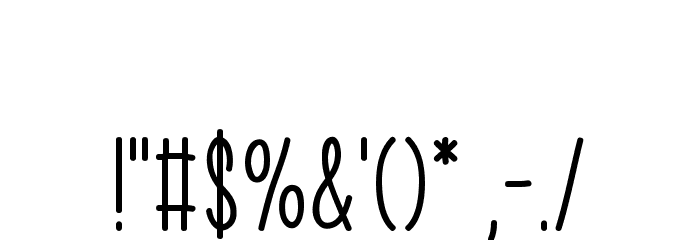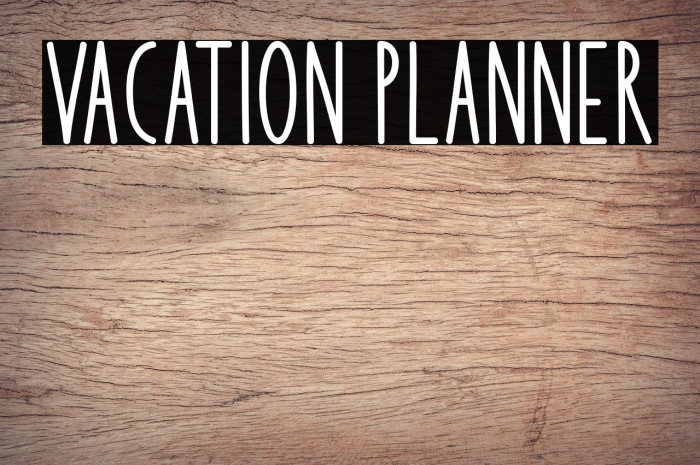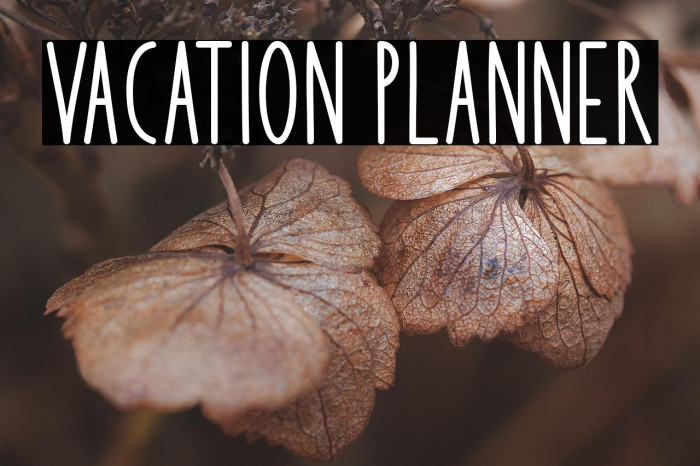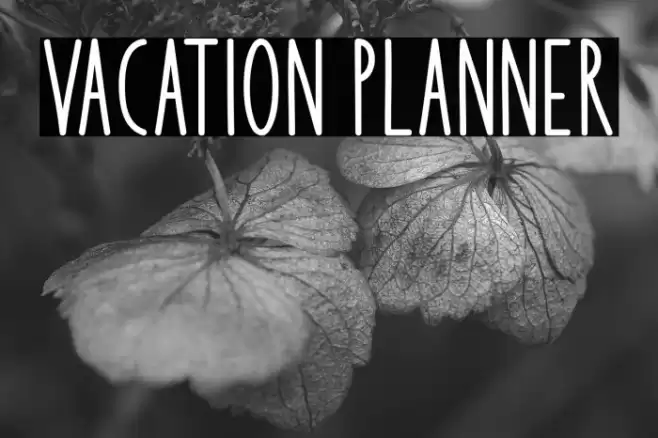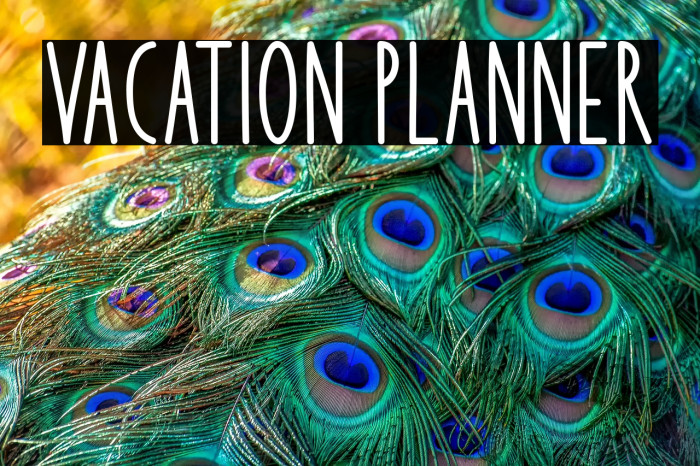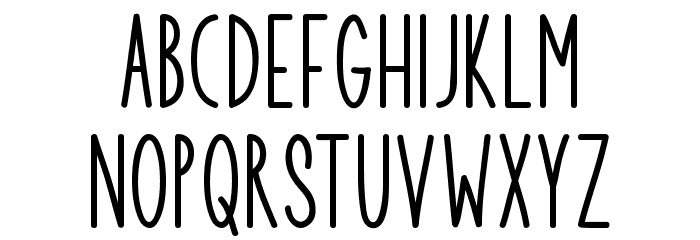
Vacation Planner Font
Vacation Planner Description
This font features a playful and casual style with tall, narrow letters that have a handwritten feel. The characters are evenly spaced with a slight roundness, giving them a friendly and approachable appearance. The uppercase and lowercase letters maintain a consistent height, contributing to a uniform look. The font includes a full set of uppercase and lowercase letters, numbers, and a variety of special characters. Its clean lines and simple design make it versatile for various applications, while its unique charm adds a touch of personality to any project.
| Proposed Projects | Ideal for greeting cards, invitations, children's books, and playful branding projects. |